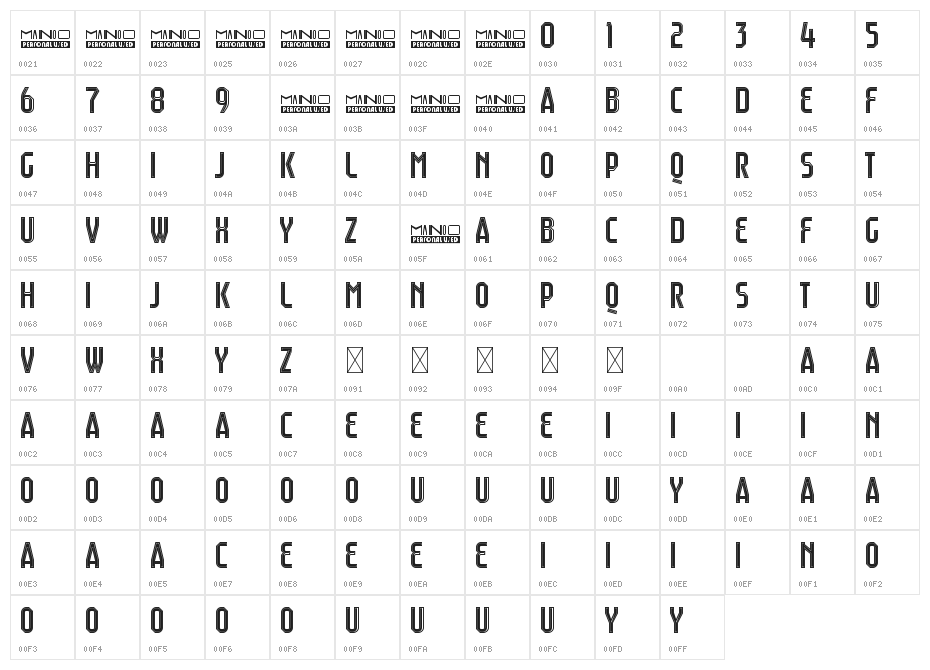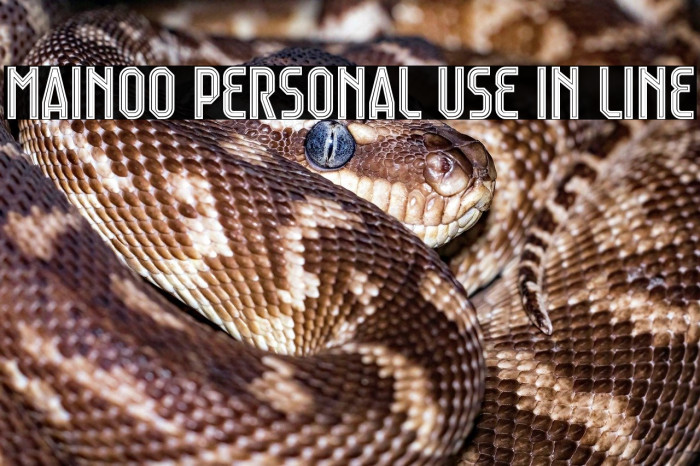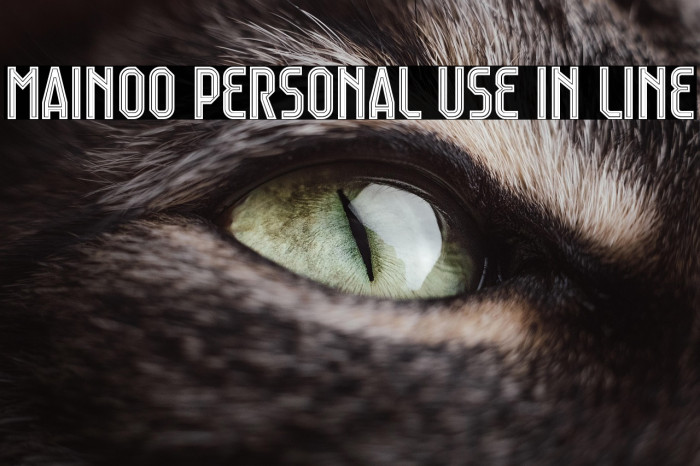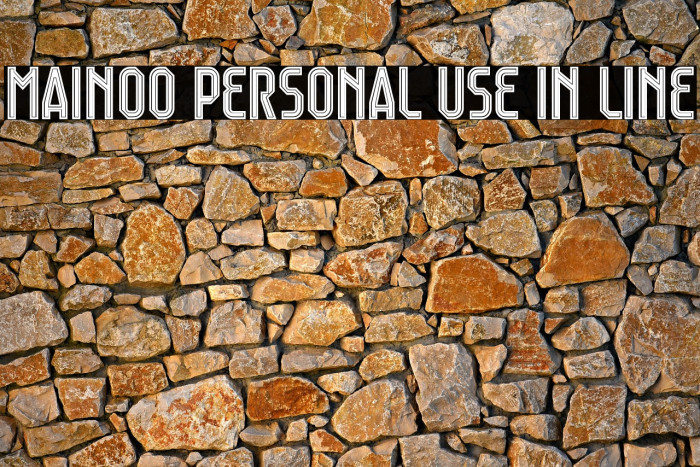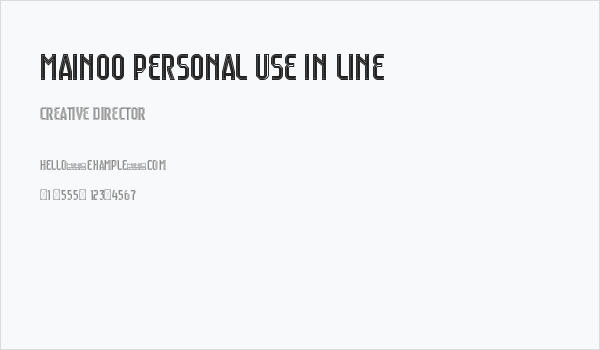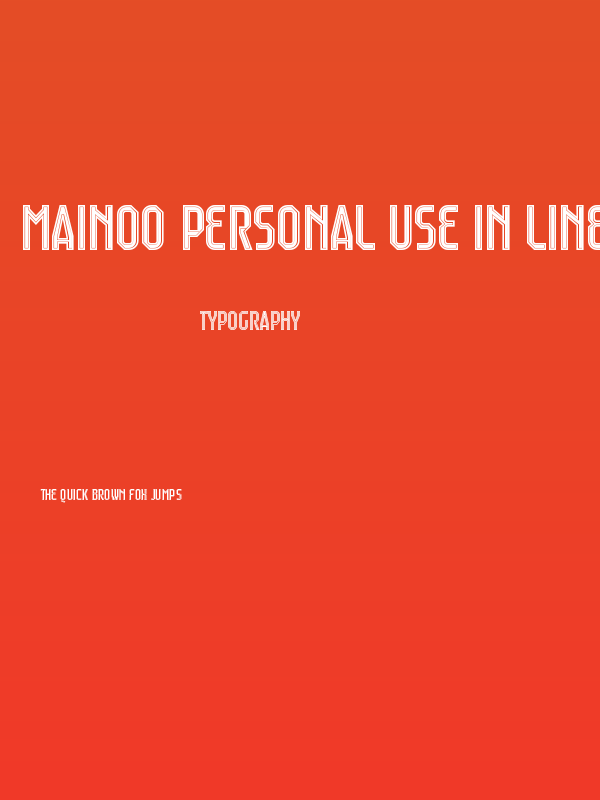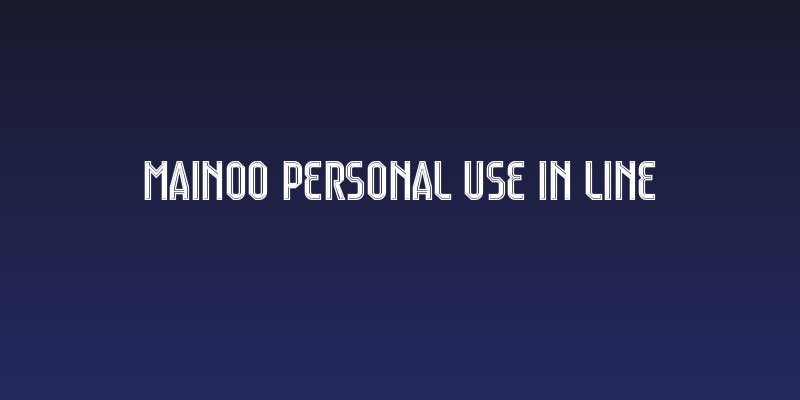
Mainoo Personal Use In Line Font
Mainoo Personal Use In Line Description
This font features a bold, geometric design with a distinct inline style that creates a striking visual effect. The characters are tall and narrow, with sharp angles and clean lines, giving it a modern and futuristic appearance. The inline detail adds depth and dimension, making each letter stand out. The uppercase letters are consistent in height, while the numbers and special characters maintain the same stylistic approach. This font is ideal for projects that require a bold statement and a contemporary look.
| Proposed Projects | Ideal for branding, posters, headlines, and any design needing a modern, bold statement. |